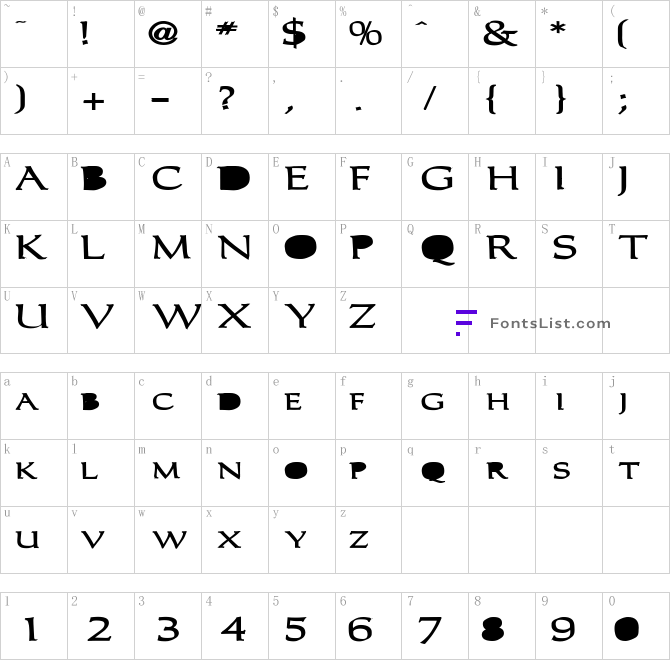
Caracub-Bold.ttf is a very beautiful artistic font, Caracub-Bold.ttf is widely used in the design and printing of various books and pictures,Caracub-Bold.ttf has a strong visual impact,Caracub-Bold.ttf is a commonly used font in newspapers, magazines and books, and is used in posters, e-commerce Poster design, store design, logo design, font design and other fields.Caracub-Bold.